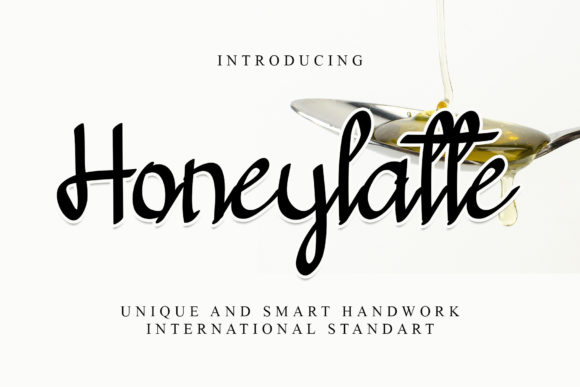
About Honeylatte Font
Honeylatte is a charming and authentic handwritten font that brings a warm and personal touch to your designs. With its natural and organic look, it is perfectly suited for creating chalkboard quotes and teaching materials, adding a sense of familiarity and realism.
The unique and imperfect strokes of Honeylatte emulate the essence of genuine handwriting, evoking a sense of warmth and approachability. Its handwritten appearance allows it to effortlessly infuse your designs with a personal and human touch, making it ideal for educational materials where a sense of connection with the audience is essential.
Whether you’re designing classroom resources, educational posters, or chalkboard-style displays, Honeylatte will elevate your work with its cozy and inviting vibe. It brings a sense of playfulness and creativity, making it a great choice for engaging and interactive teaching materials.
Its versatility extends beyond educational content, as Honeylatte can also be used for a wide range of designs such as greeting cards, social media graphics, invitations, and more. The font’s unique character will make each project stand out, leaving a lasting impression on the viewer.
Honeylatte is designed to be legible and readable, ensuring that your messages are easily understood, even from a distance. Its natural flow and rhythm create a visually pleasing reading experience, making it an excellent choice for conveying heartfelt messages or important information in an appealing manner.
In summary, Honeylatte is a wonderful handwritten font that brings an authentic and personal feel to your designs. Its versatility allows it to shine in various contexts, especially when used for chalkboard quotes and educational materials. Embrace the natural charm of Honeylatte to create designs that resonate with your audience and leave a lasting impression with their warmth and authenticity.